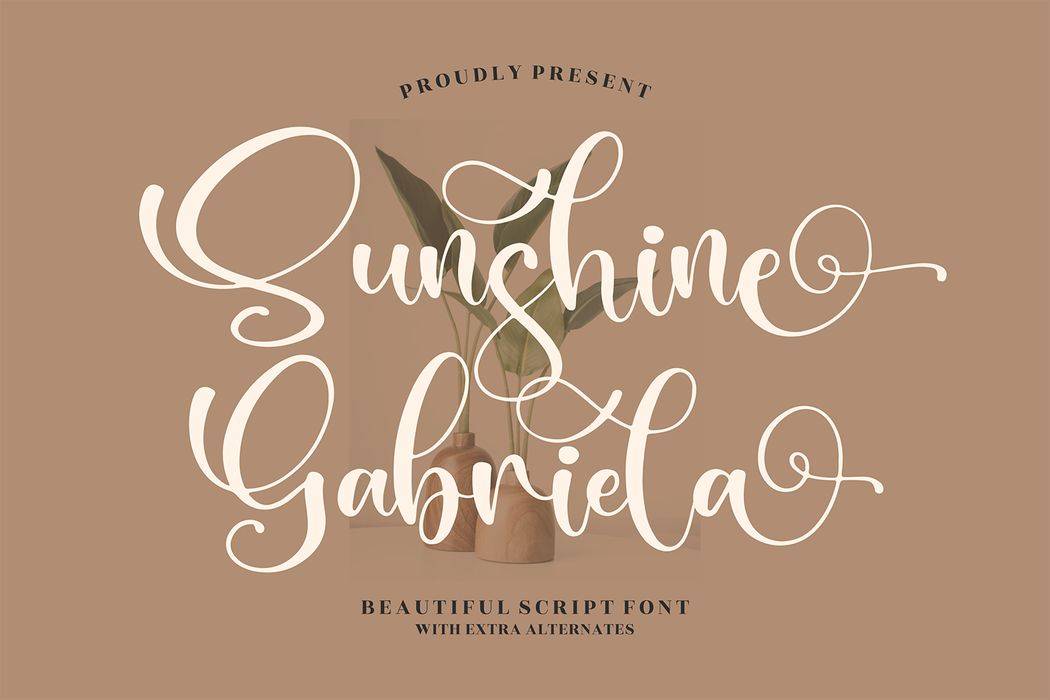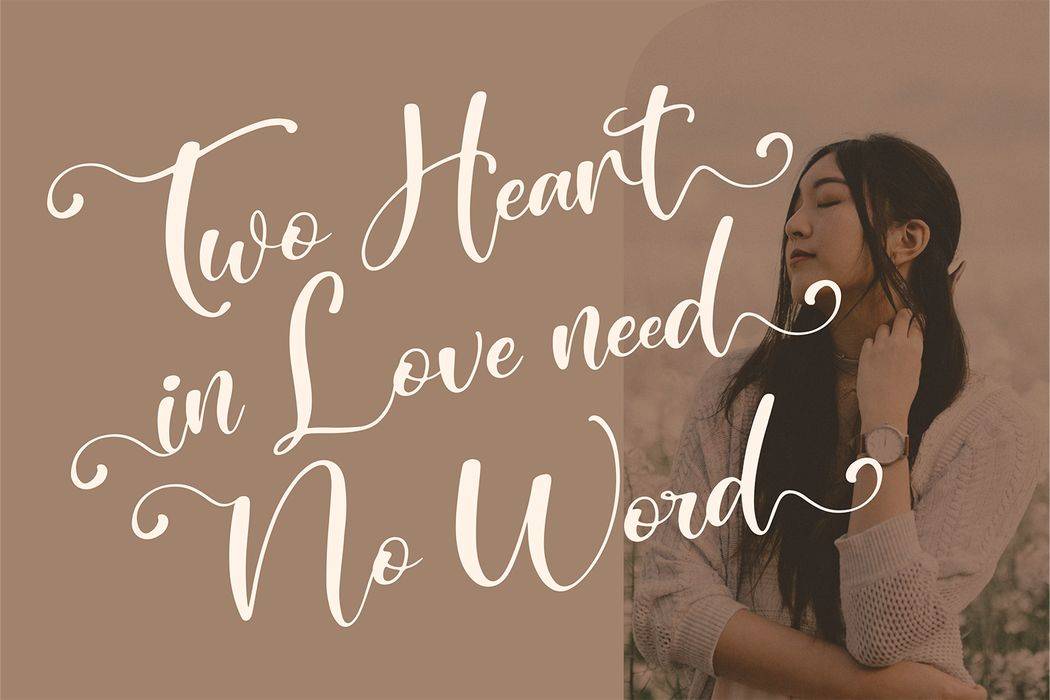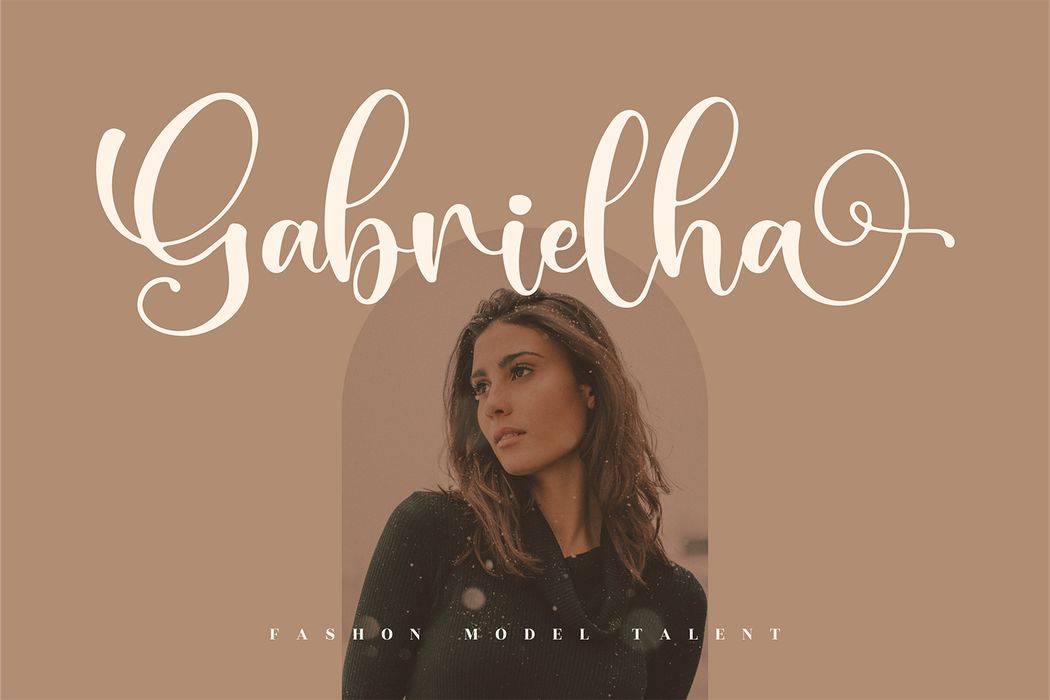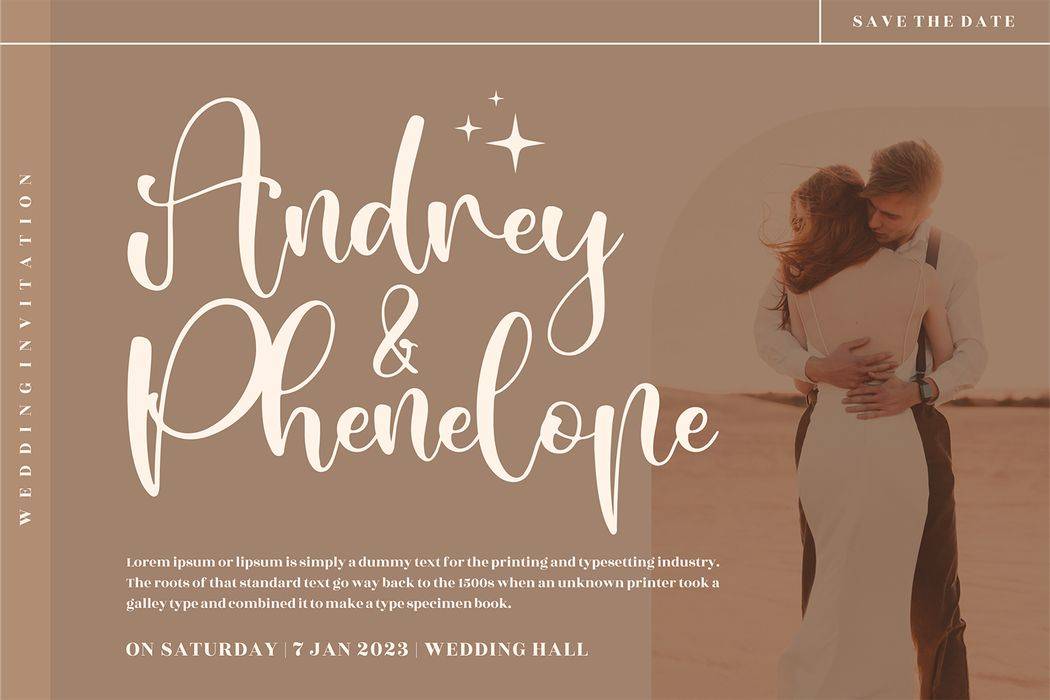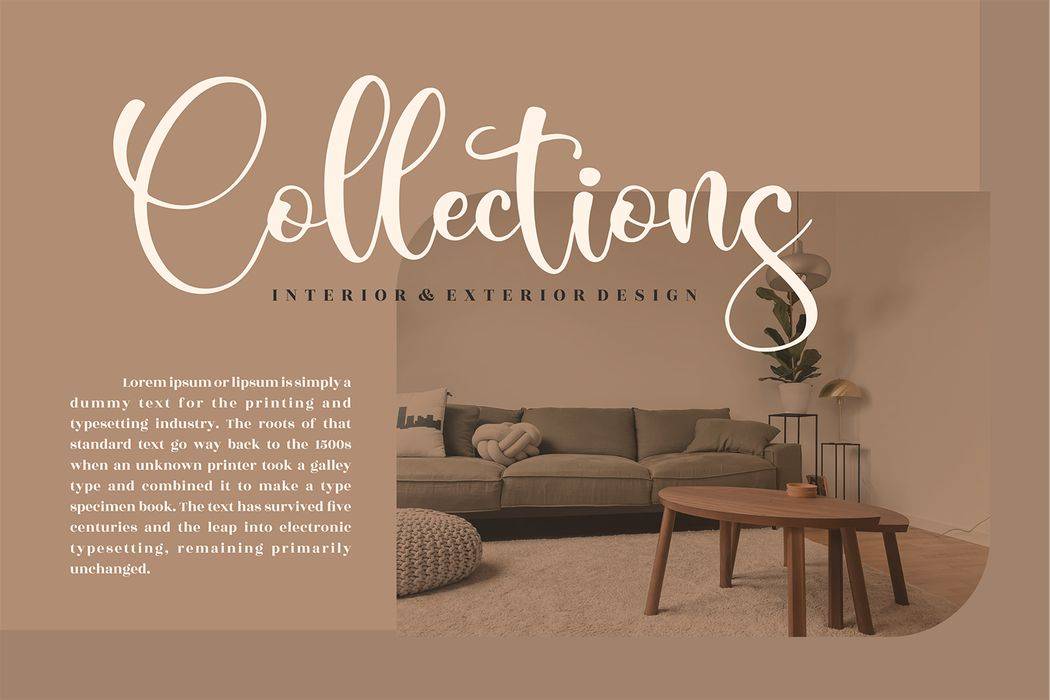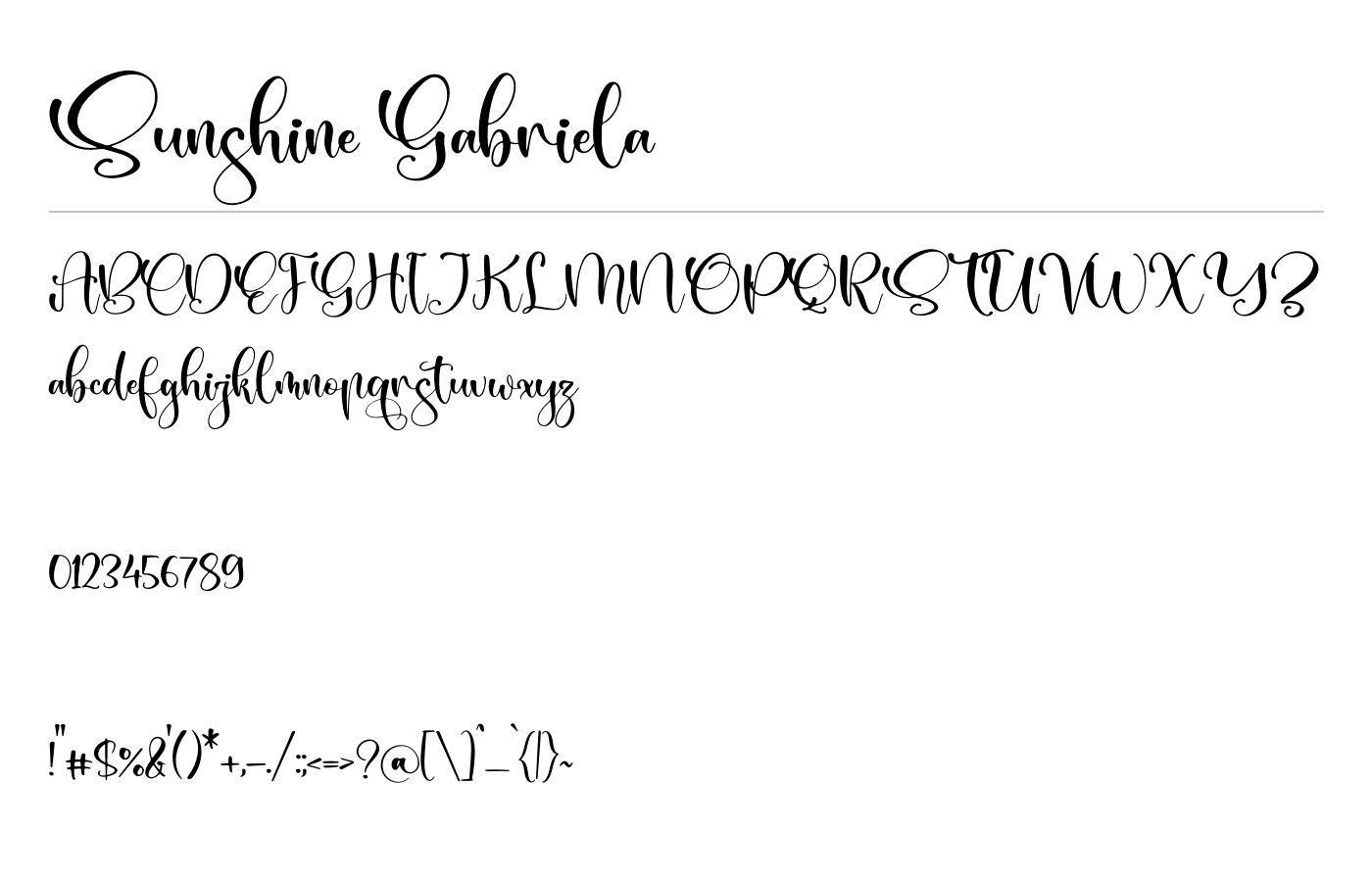
Sunshine Gabriela is an elegant script font featuring delicate, flowing letterforms with graceful swashes and a calligraphic style. Its light weight and high contrast add a refined, romantic feel, making it ideal for wedding invitations, luxury branding, and feminine designs. This font’s decorative flourishes and smooth curves create a sophisticated yet approachable look that works beautifully in headlines and logo designs where a personal, artistic touch is desired.
Sunshine Gabriela Font
About Sunshine Gabriela Font